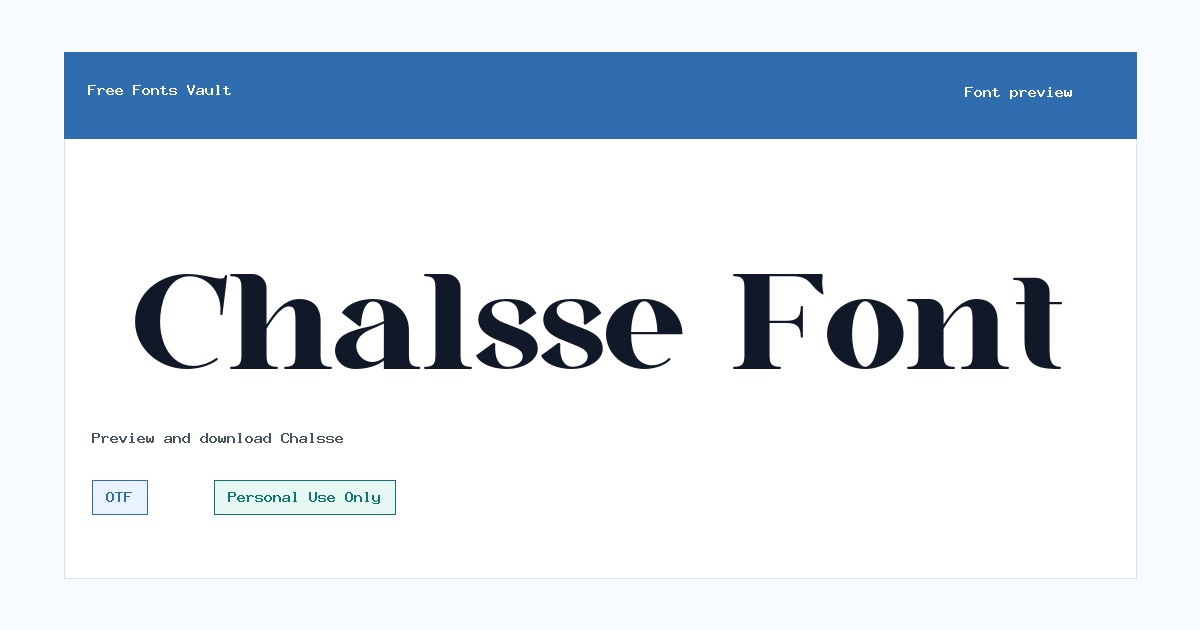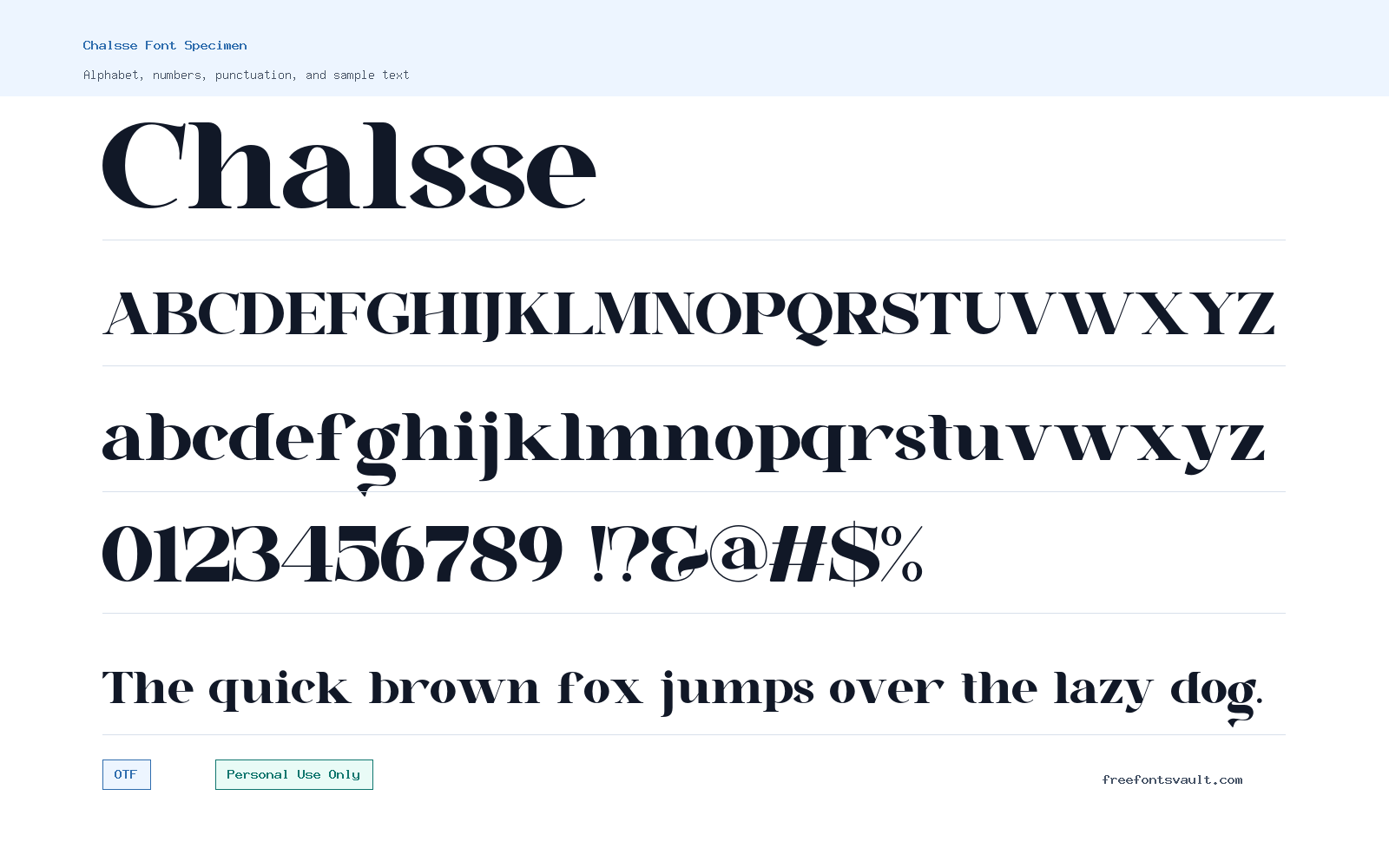
Chalsse
Chalsse font preview showing the family name
Chalsse Font
Chalsse font specimen showing alphabet, numbers, and sample text
Chalsse font.
Chalsse is a serif font from ErmediaStudio with a Personal Use Only license. It is a good choice to preview when you need a composed, text-led style for non-commercial design work.
About Chalsse Font
Chalsse has the calm, structured feel visitors often expect from a serif typeface. Its regular style is best tested in words that need a little formality without feeling too decorative. Because the downloadable file is an OTF font in a regular 400 weight, it should work well for straightforward mockups, headings, short labels, and visual experiments where one clean style is enough. Try it first with your own title, name, or phrase in the preview box, especially if you plan to use it for branding studies, invitation drafts, quote graphics, or editorial-style layouts.
For readability, Chalsse is safer in short and medium-length settings than in very dense blocks of small text. Serif details can look elegant at larger sizes, but they may lose clarity if the font is used too small, too tightly spaced, or over a busy background. Use generous line spacing for paragraph tests, and check the letters that matter most in your project, such as uppercase initials, punctuation, numerals, and repeated letters. If you are building a layout, pair Chalsse with a simple sans serif for captions, menus, body copy, or supporting information so the serif style can stay focused on the main message.
• Serif design suited to titles, display text, and personal-use mockups
• Personal invitation drafts, quote images, name cards, and poster-style headings
• Editorial mockups, logo concept studies, social graphics, and typography previews
What is Chalsse best used for?
It is best tested for short text such as headings, names, invitations, quotes, editorial mockups, and personal design experiments. For long reading text, preview it carefully at small sizes before using it.
How should I pair Chalsse with another font?
Use Chalsse for the main title or display line, then choose a simple sans serif for body text, captions, buttons, or details. This keeps the layout readable and avoids too much visual competition.